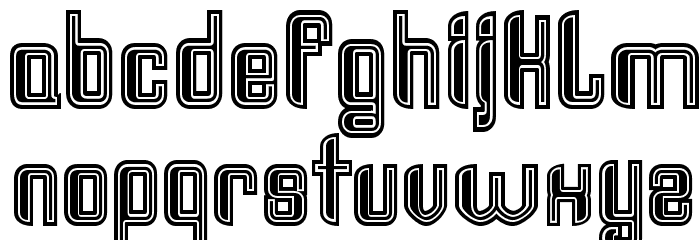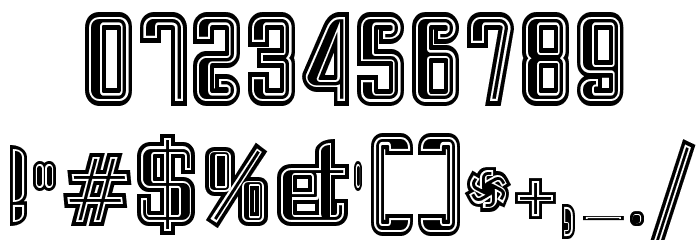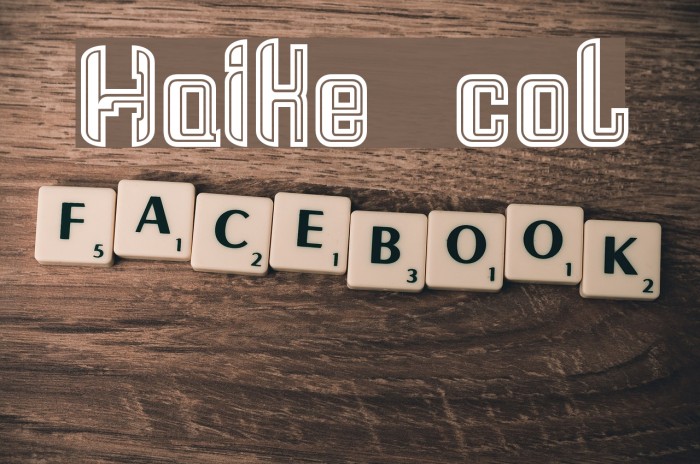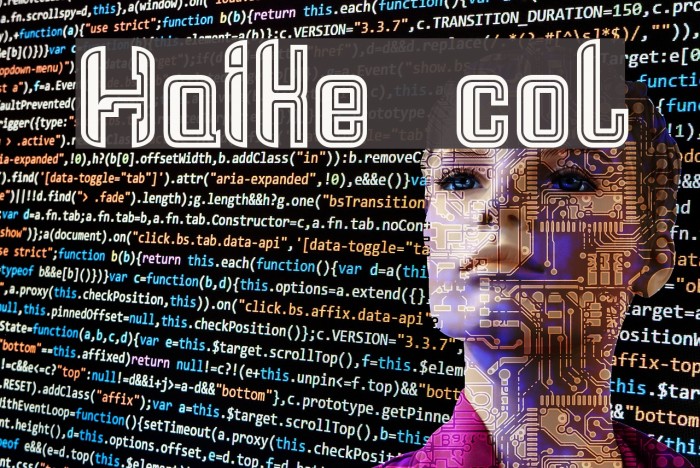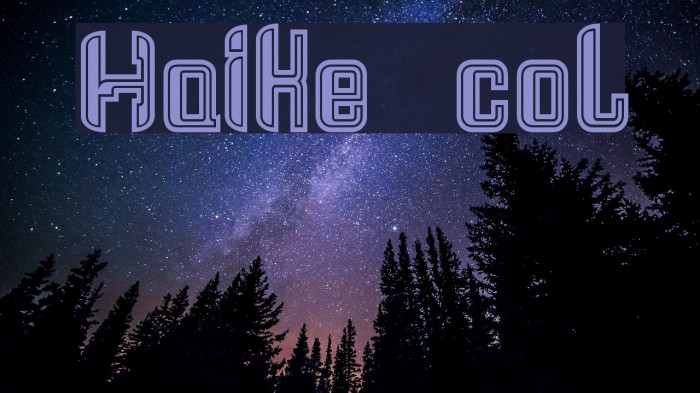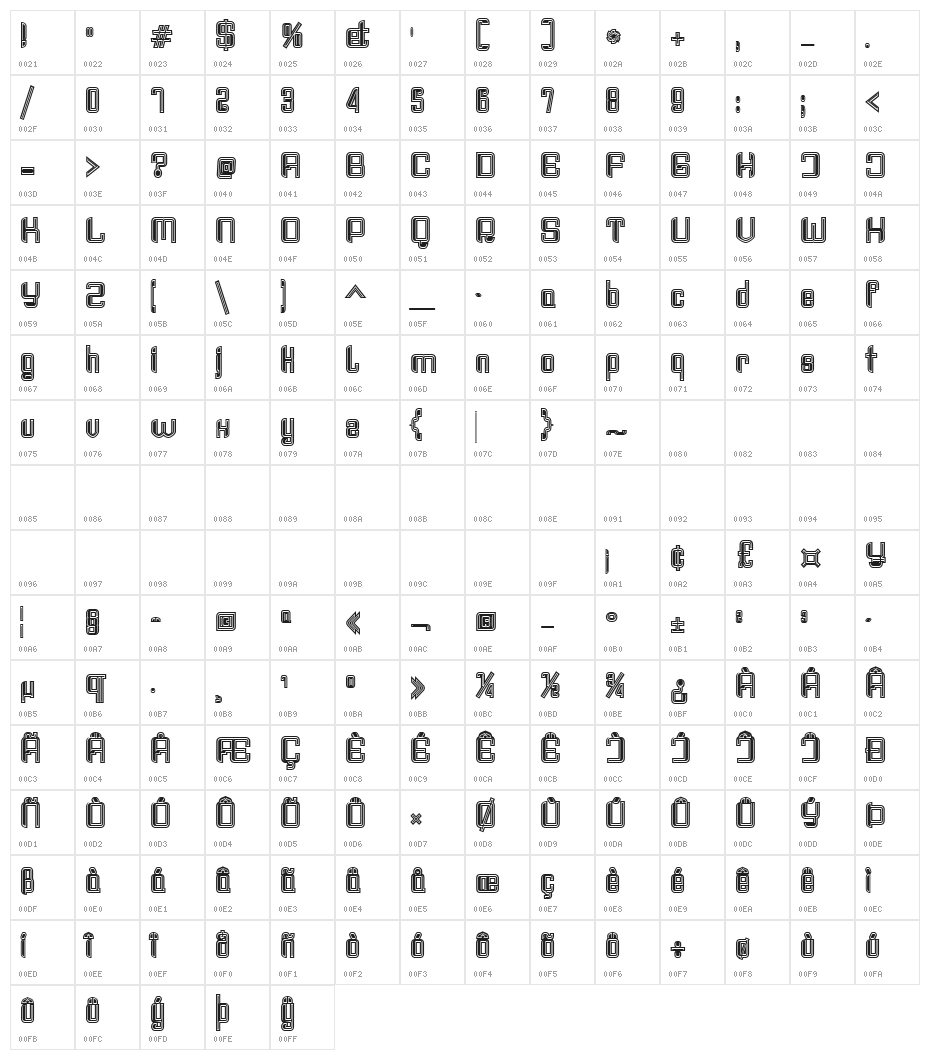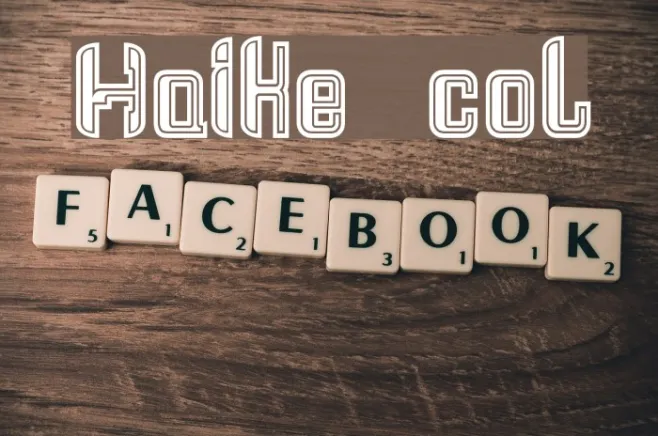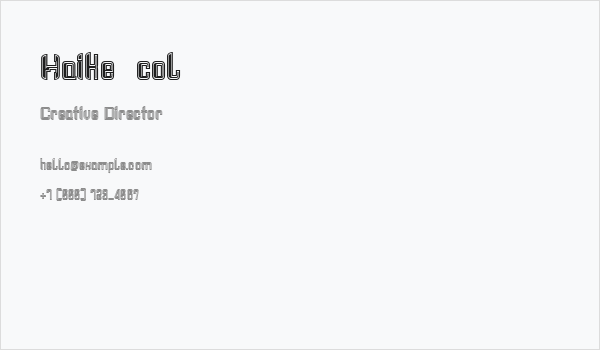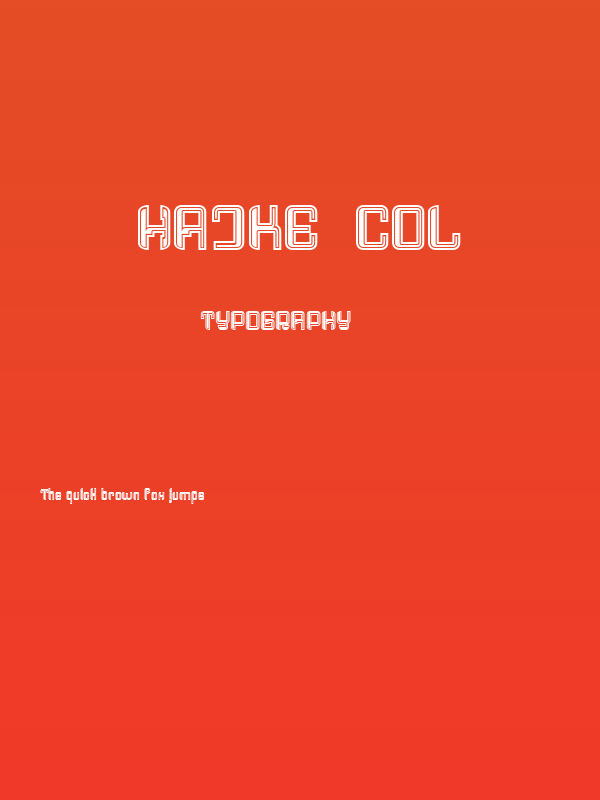
Haike col Font
This font features a bold, geometric design with a double-line structure that creates a striking outline effect. The characters are uniformly wide, giving a sense of balance and symmetry. The uppercase letters are particularly distinctive, with sharp angles and a futuristic feel. The lowercase letters maintain the same geometric style, ensuring consistency across the typeface. Numbers and special characters are designed to match the boldness and style of the alphabet, making this font versatile for various uses. The overall appearance is modern and eye-catching, suitable for projects that require a strong visual impact.
A bold, geometric font with a double-line outline, offering a modern and futuristic look.
- Proposed Projects: Ideal for branding, posters, headlines, and any design that needs a bold, modern touch.